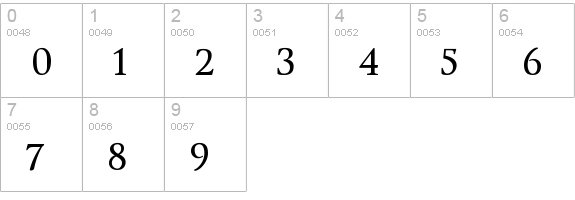
Winthorpe Rg Font Details
Winthorpe Rg font is a modern and stylish typeface that exudes sophistication and elegance. Its sleek lines and sharp edges make it perfect for a wide range of design projects, from branding to print materials. With its clean and professional look, Winthorpe Rg font is sure to make your designs stand out. The best part is that Winthorpe Rg font is completely free to download! You can get your hands on this beautiful font at FontsMarket.com, where you can easily access a wide variety of high-quality fonts for all your creative needs. Don't miss out on the opportunity to add Winthorpe Rg font to your collection and take your designs to the next level.